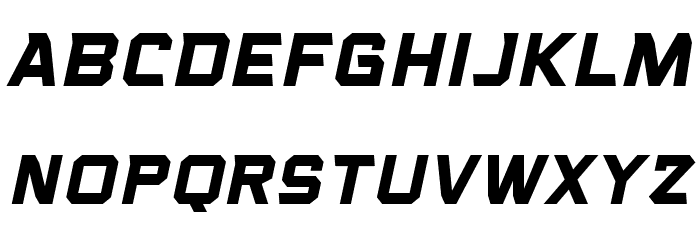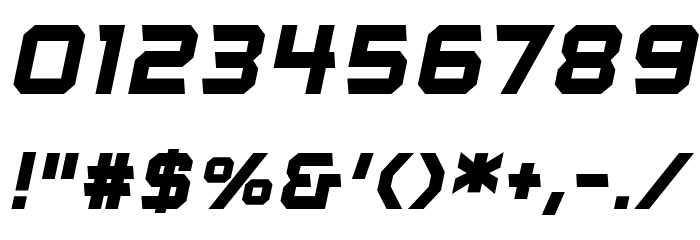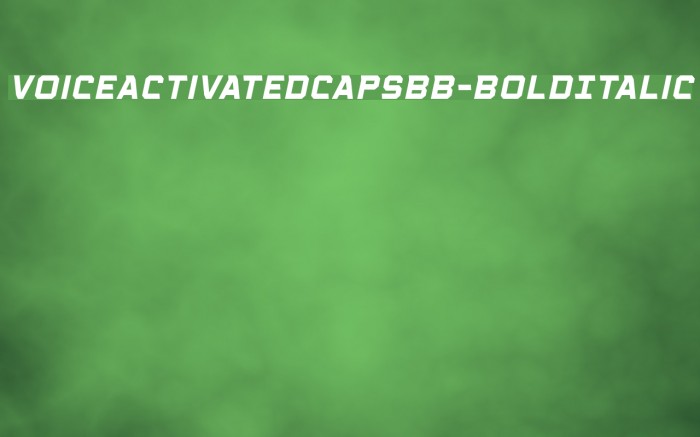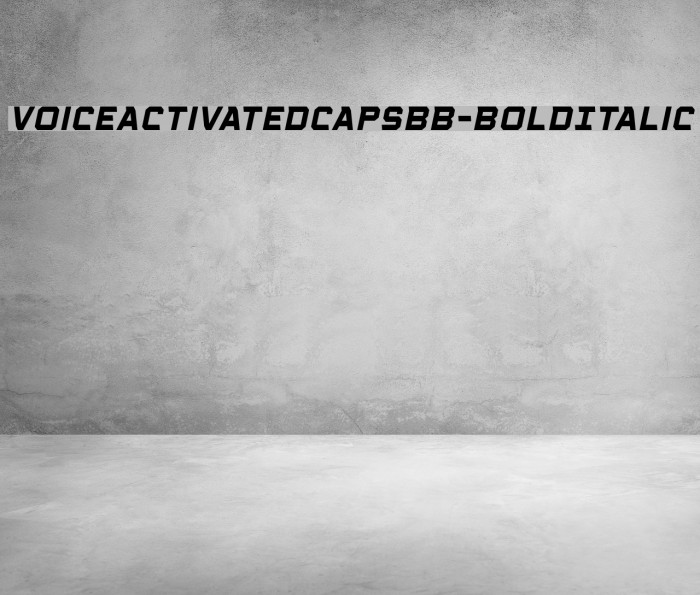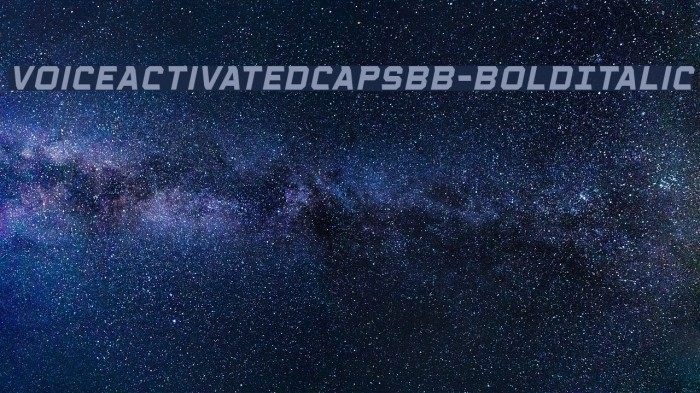
VoiceActivatedCapsBB-BoldItalic Font
This font exhibits a bold and italicized style, characterized by its strong geometric shapes and angular lines. The letters are slightly slanted, giving a dynamic and forward-moving appearance. The boldness of the strokes ensures high visibility, making it suitable for attention-grabbing headlines. The angular design of the characters adds a modern and edgy feel, while maintaining readability. The numbers and special characters follow the same stylistic cues, ensuring consistency across all elements.
A bold, italicized font with geometric shapes and angular lines for a modern look.
- Proposed Projects: Ideal for sports branding, tech-related designs, or any project needing a modern, dynamic typeface.